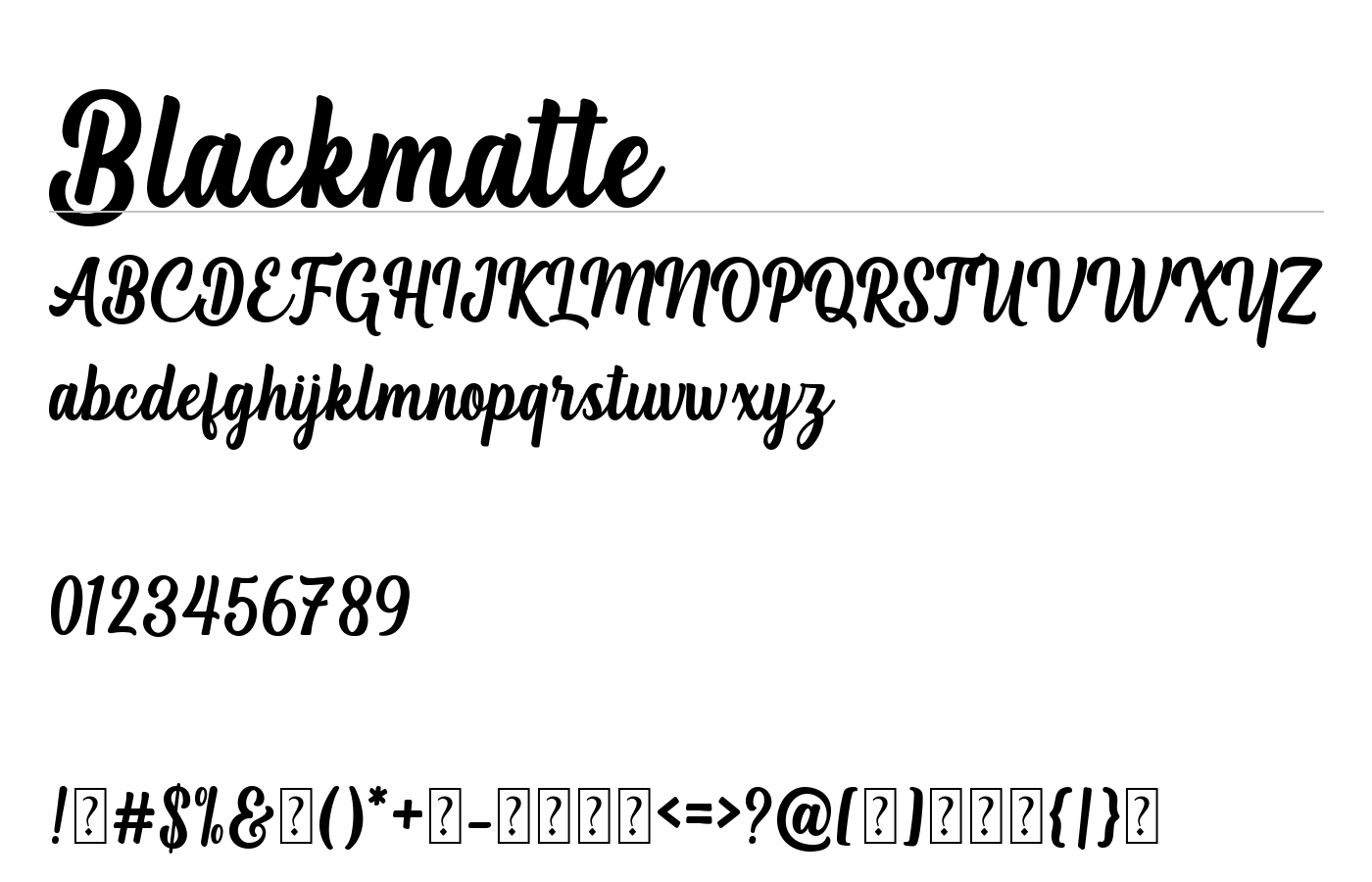
Blackmatte is a stylish script font with a smooth, flowing design that combines boldness with elegance. Its slightly condensed letterforms and consistent stroke weight give it a modern yet classic feel, making it ideal for eye-catching headlines, logos, and branding projects that seek a friendly and sophisticated touch. This font works best in creative and fashion contexts where personality and readability are equally important.
| Font family | Blackmatte Font |
| Designer | Rizky Awaludin |